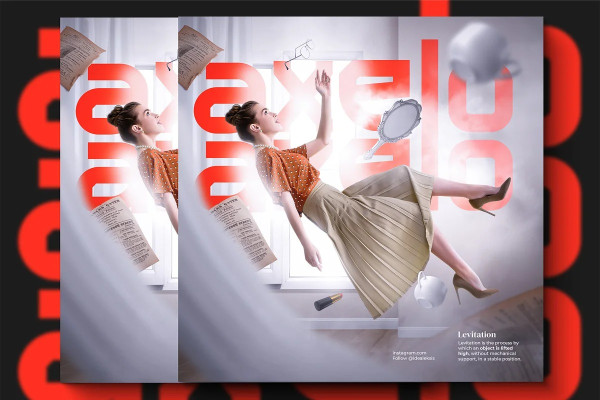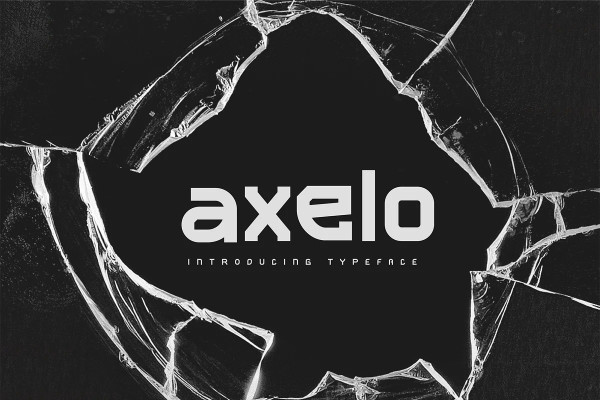
Axelo Display Font
Axelo Display Font, this bundle features strong, confident and powerful typefaces designed to work great with sports logos, club branding, apparel applications, labels and more.